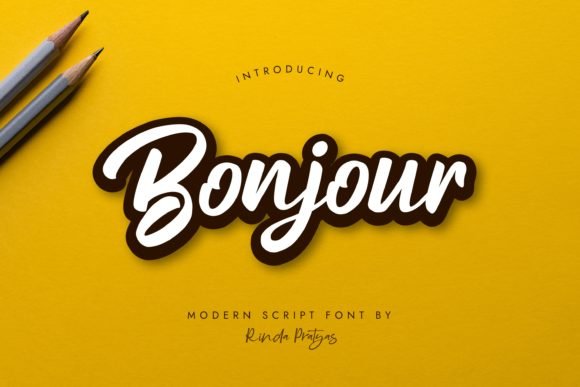
The Perfect Script: Unlocking the Beauty of Bonjour Font You know that moment when you’re working on a design project and everything just falls into place? The colors, the layout, the typography – it all comes together in a harmonious symphony. For many designers, that moment often starts with the perfect font. And for those…